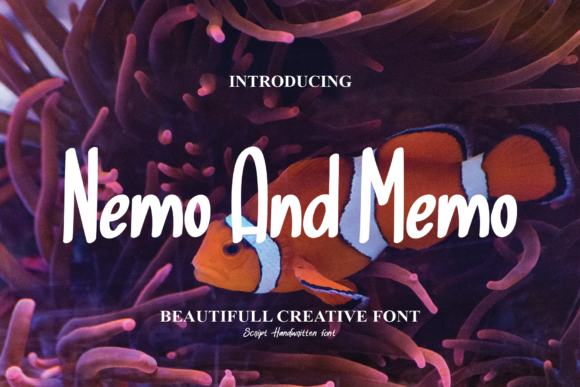
In a world teeming with digital monotony, Nemo and Memo Font emerges as a beacon of originality, a symphony of strokes that dances across the screen with an untamed spirit. This exquisite script font, handcrafted by the visionary artisans at Robbots Stores, is more than just a collection of letters; it's an artistic expression, a testament to the boundless creativity that lies within the realm of typography.
Step into a realm where your words dance with grace and elegance, where every letter becomes a stroke of art. Nemo and Memo Font is not merely a font; it's a gateway to a world where your imagination can run wild, where your messages are transformed into captivating narratives that leave an indelible mark on the hearts and minds of your audience.
With its effortless flow and captivating curves, Nemo and Memo Font breathes life into your digital creations. Dive into a sea of endless possibilities, where your wedding invitations become timeless keepsakes, your business cards exude professionalism, and your social media posts radiate with an infectious charm.
Nemo and Memo Font is not just a font; it's a catalyst for creativity, an invitation to embark on a journey where every design becomes a masterpiece. Whether you're a seasoned designer or just starting out, this font will unleash your inner artist, empowering you to create designs that resonate with authenticity and style.
Let your imagination soar, let your creativity flow, and let Nemo and Memo Font guide you on a typographic odyssey that will leave you breathless. Embrace the beauty of handwritten elegance, the allure of flowing strokes, and the endless possibilities that await you within this remarkable font.